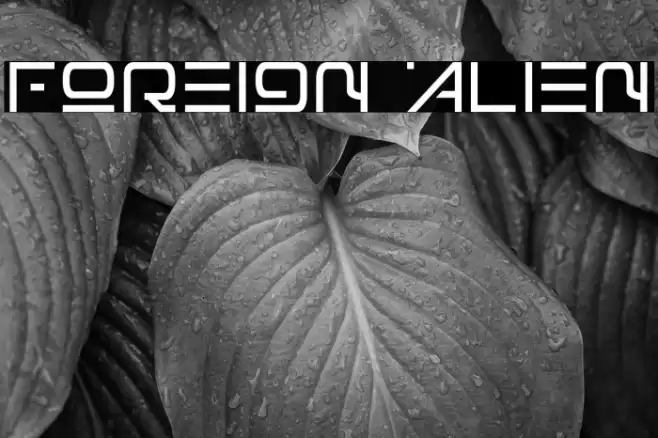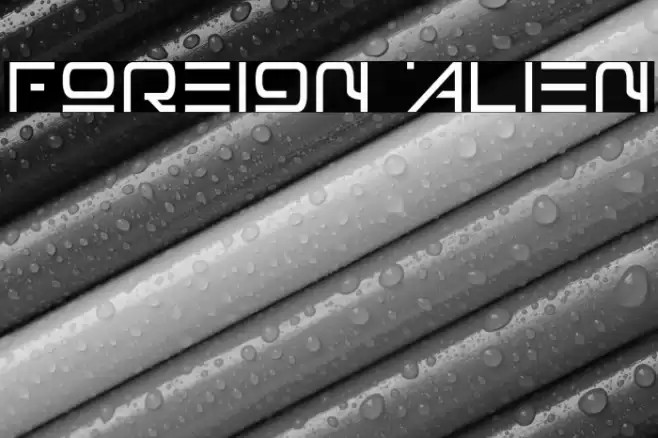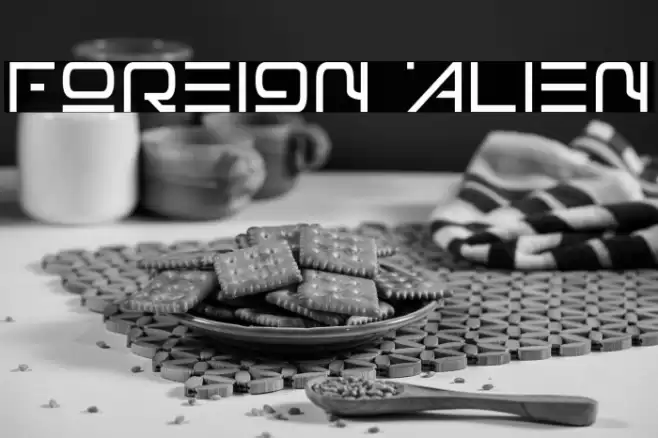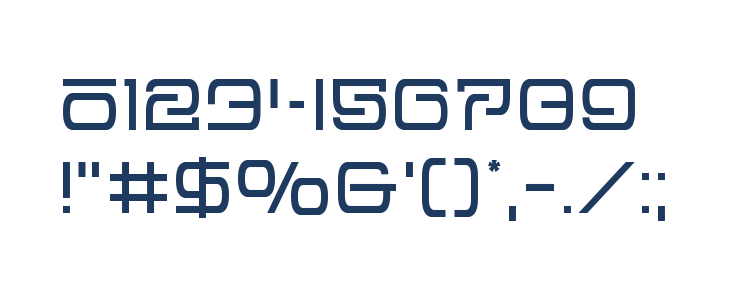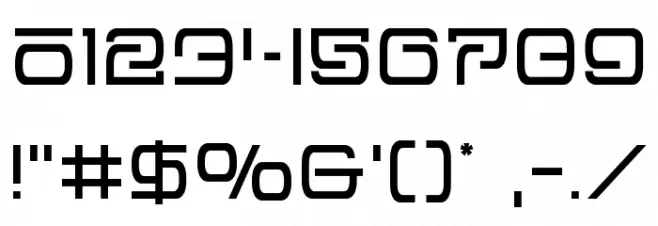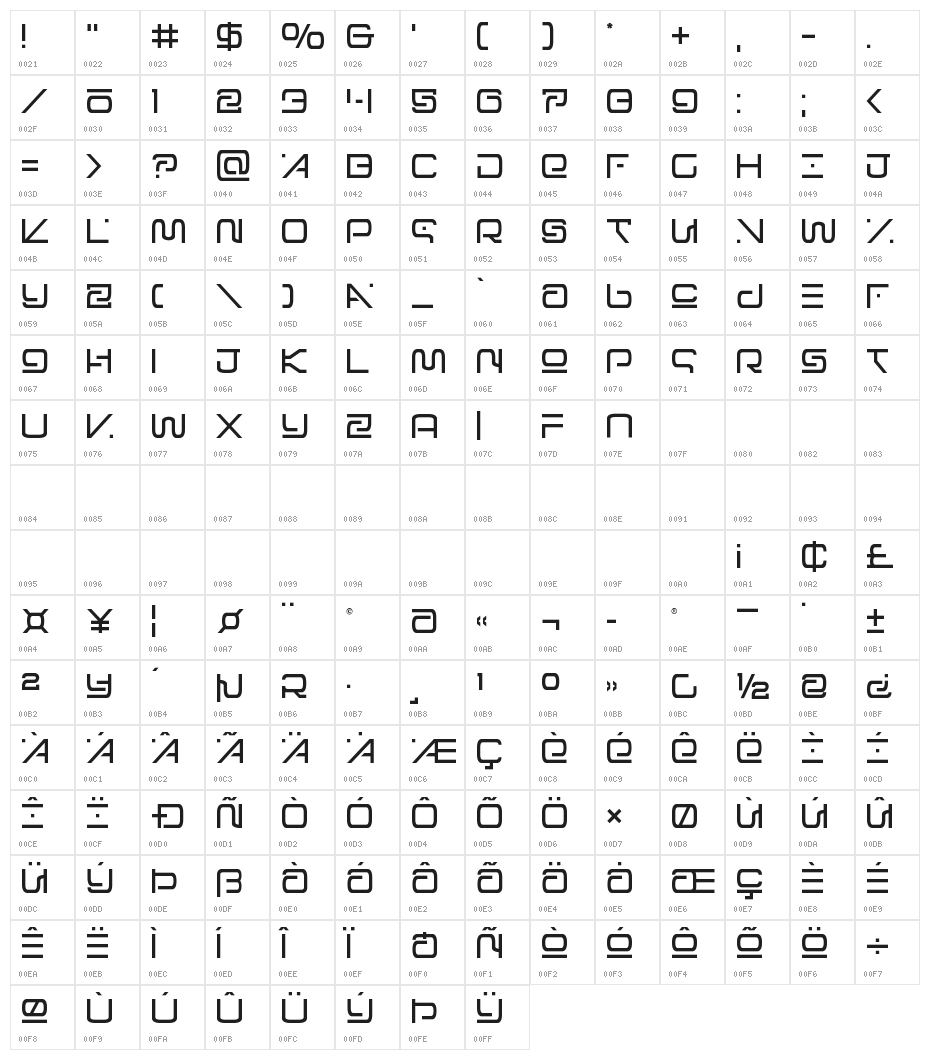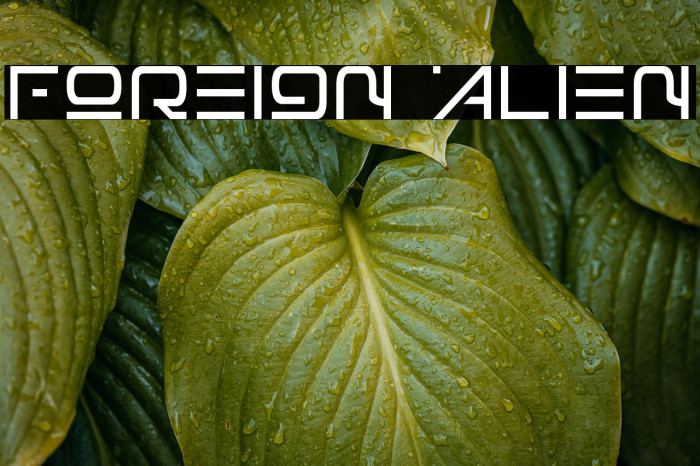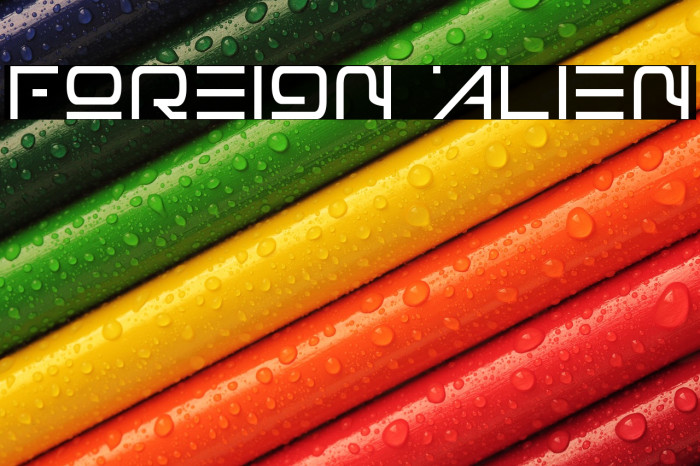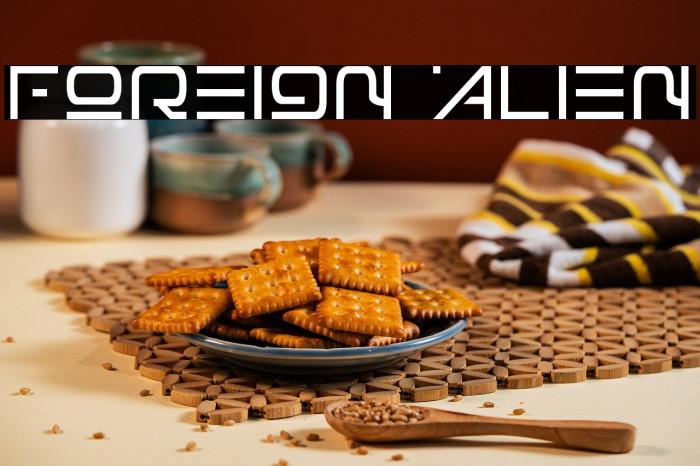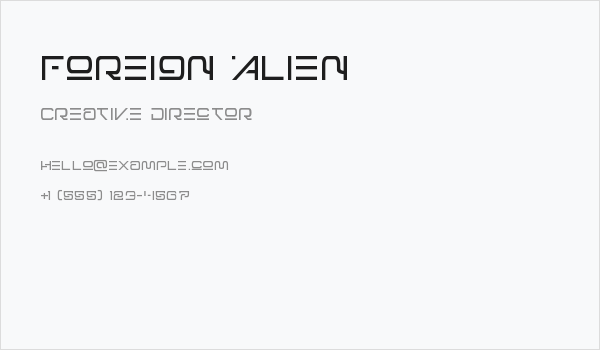
Foreign Alien Font
Foreign Alien Description
This font features a futuristic and geometric design, characterized by its angular and sharp edges. The characters are constructed with a consistent stroke width, giving it a uniform appearance. The uppercase and lowercase letters maintain a similar style, with subtle variations to distinguish them. The numerals and special characters follow the same design principles, ensuring cohesiveness throughout the set. The font's unique style makes it stand out, with a modern and slightly alien aesthetic that could be used to convey a sense of technology or science fiction.
A futuristic, geometric font with angular, sharp edges and consistent stroke width from Uncategorized fonts.
- Proposed Projects: Ideal for sci-fi themed projects, technology branding, video game interfaces, and futuristic posters.
- Overall Style: Futuristic